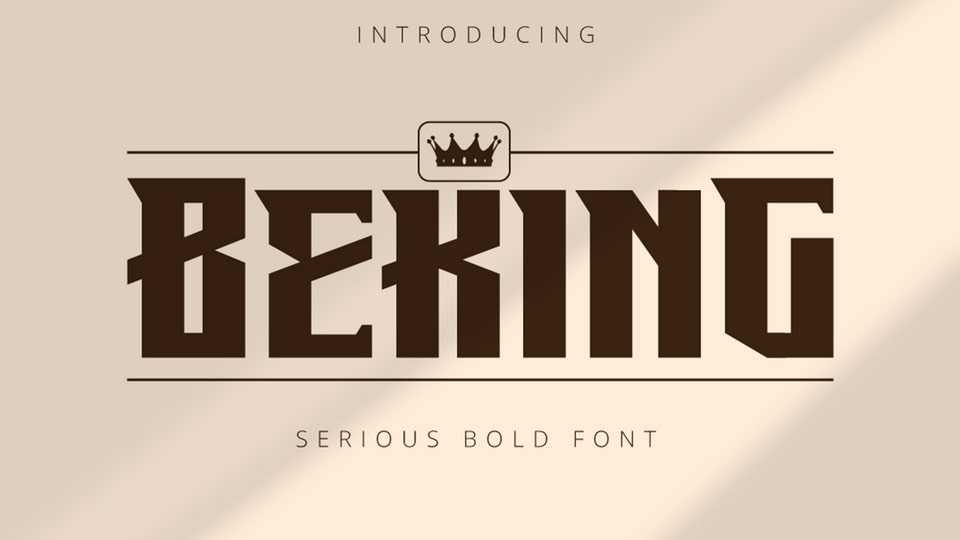
Download Beking font, a bold and strong display typeface with a retro vibe. Beking font is imposing and features uniquely shaped letters, and as a result, it will easily match a wide range of creations that require a distinct touch.